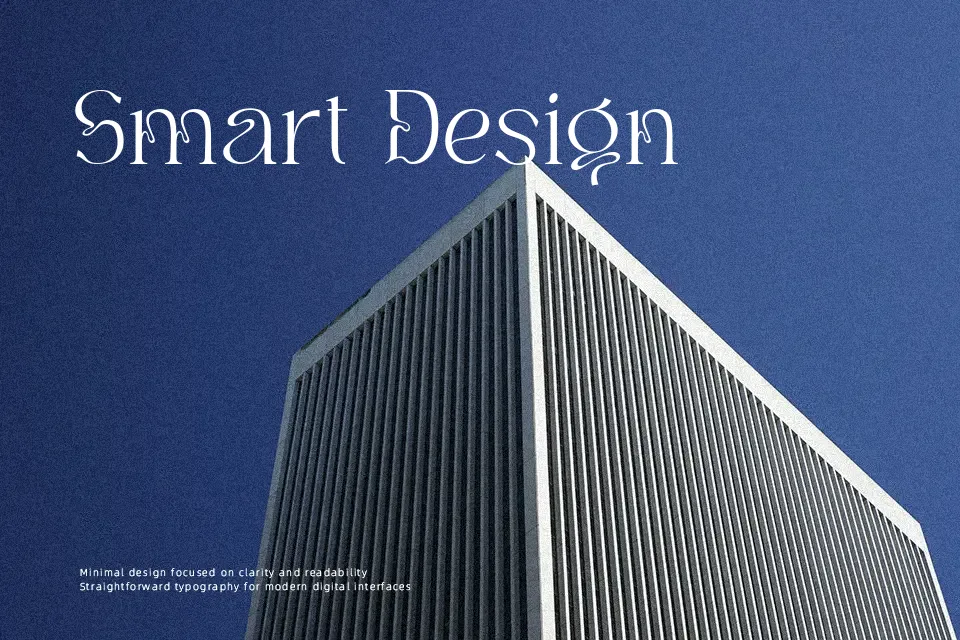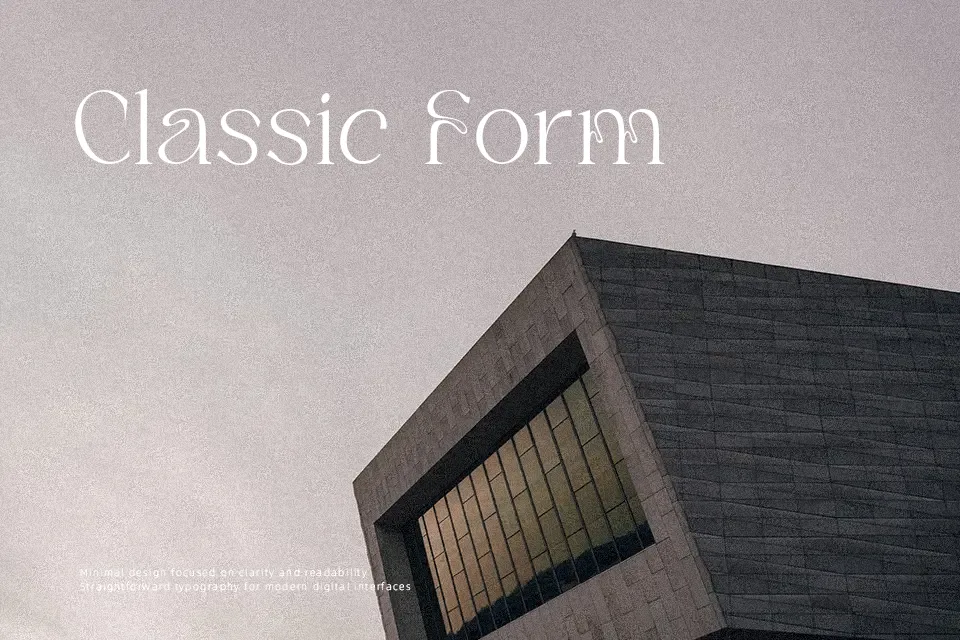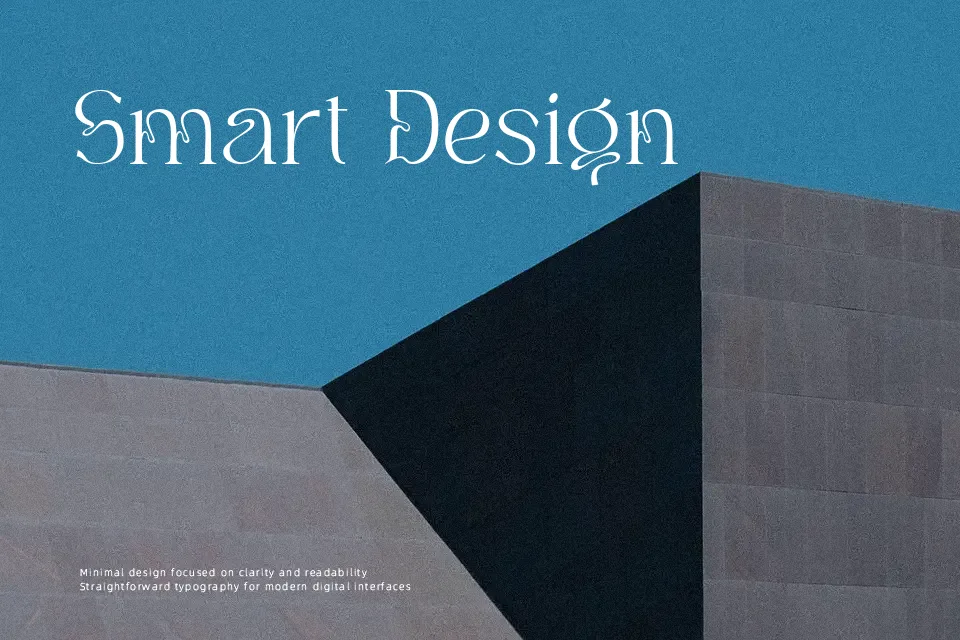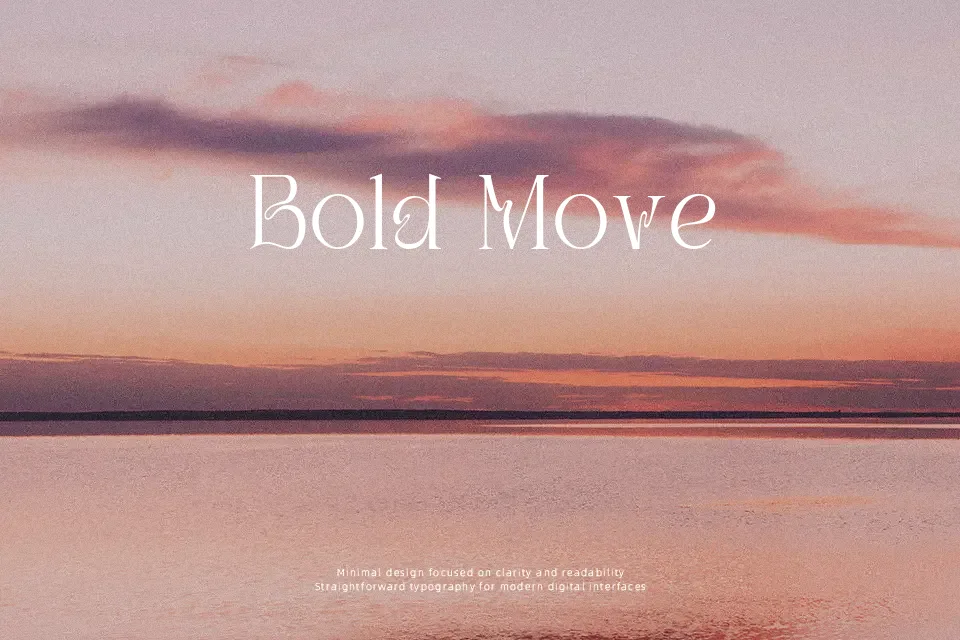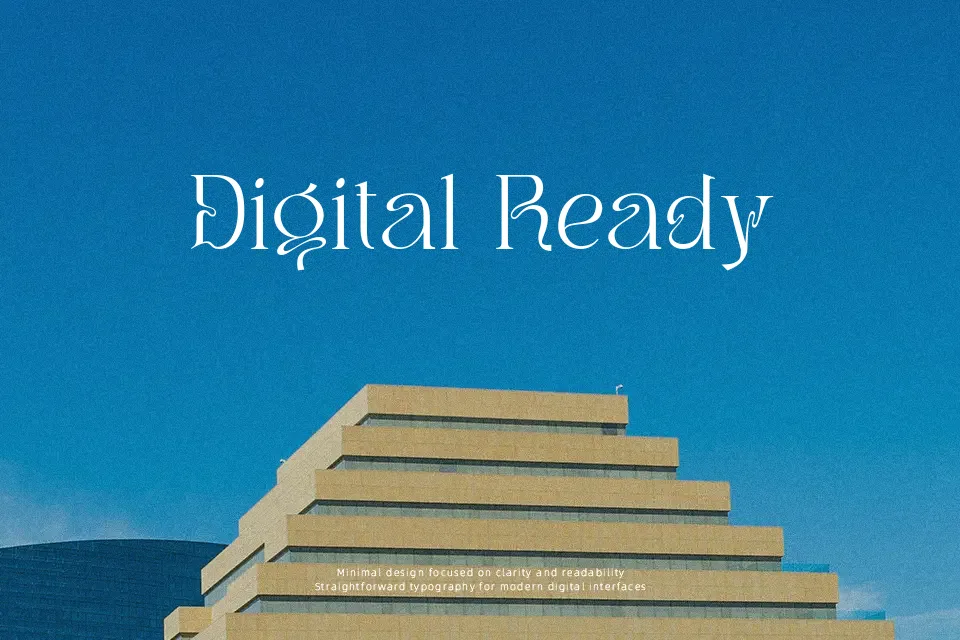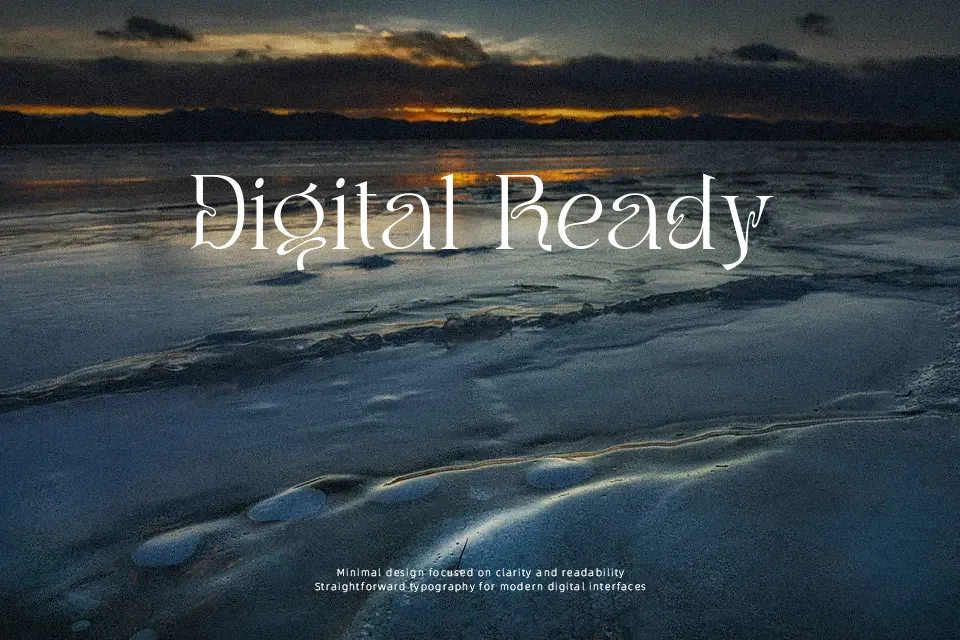
Remboy Font
Designed by Alit Design
Remboy Font stands out as a striking display serif featuring uniquely curvy, wave-like strokes and relatively slim proportions. The letterforms carry a distinctly modern retro rhythm, using elegant contrast between thick and thin lines to create a fluid visual dance across the baseline. The spacing is naturally balanced to accommodate its expressive terminals and decorative swashes, making the design highly effective for bold magazine headlines, cosmetic packaging, and vintage-inspired branding. While the stylish wavy curves provide strong character in large display sizes, these same decorative details become less effective at smaller text sizes. The intricate fluid forms reduce continuous reading comfort, making it less suitable for long paragraphs or dense body copy.
Best For: vintage product packaging, cosmetic branding, bold magazine headlines, eye-catching poster designs
Not Ideal For: long paragraph text, dense editorial layouts, small interface labels
Perfect for branding, headline, and packaging, with a creative and decorative style.